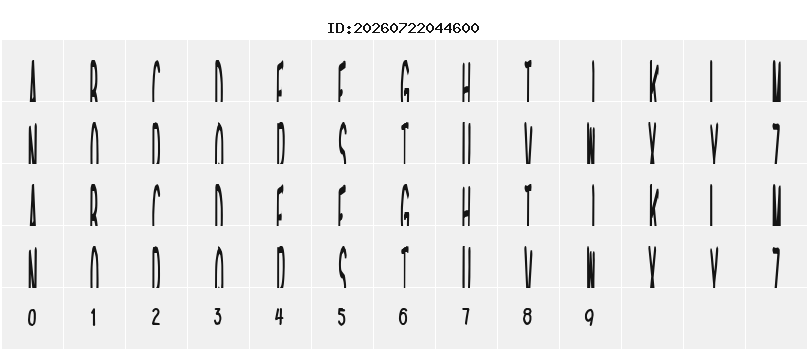
homeboysarebackintown Preview
About homeboysarebackintown.ttf
homeboysarebackintown.ttf is a modern, elegant sans-serif font designed for ultimate readability and visual harmony. Perfect for branding, headlines, web design, and print materials.